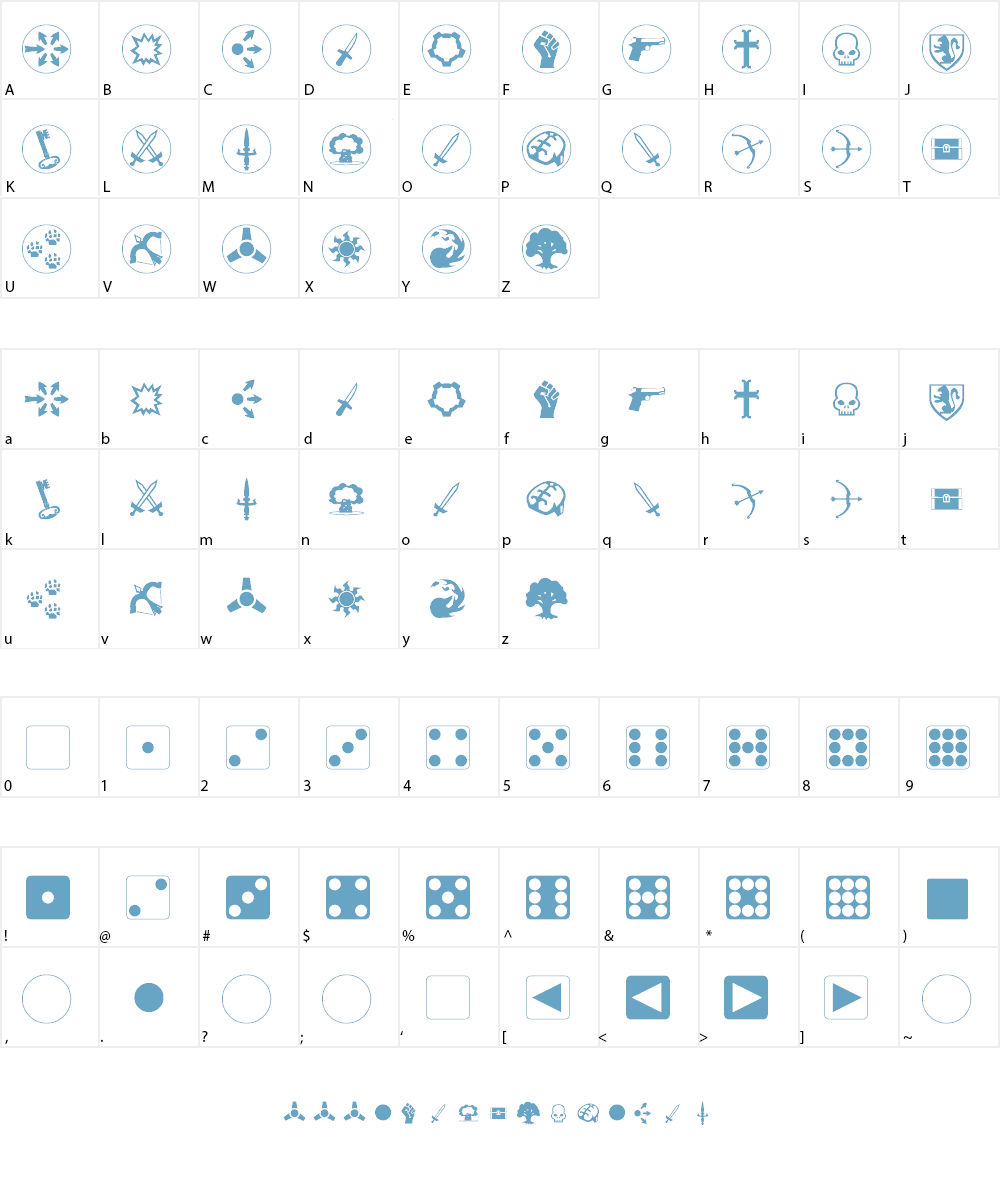
Fourth-Edition Dings is a font which contains the various attack symbols found in Wizards of the Coast’s dungeons and Dragons game (Fourth Edition, naturally) along with various other gaming symbols presented in the same style.